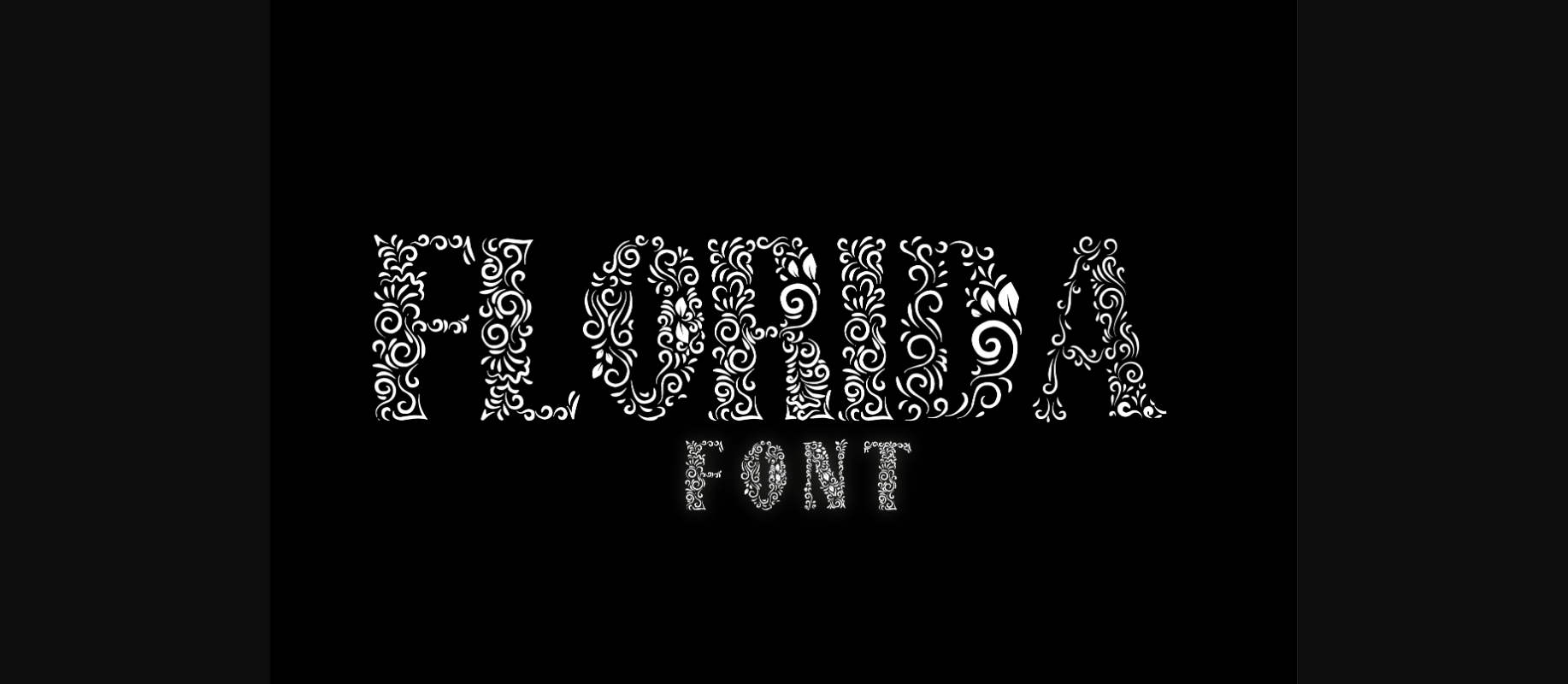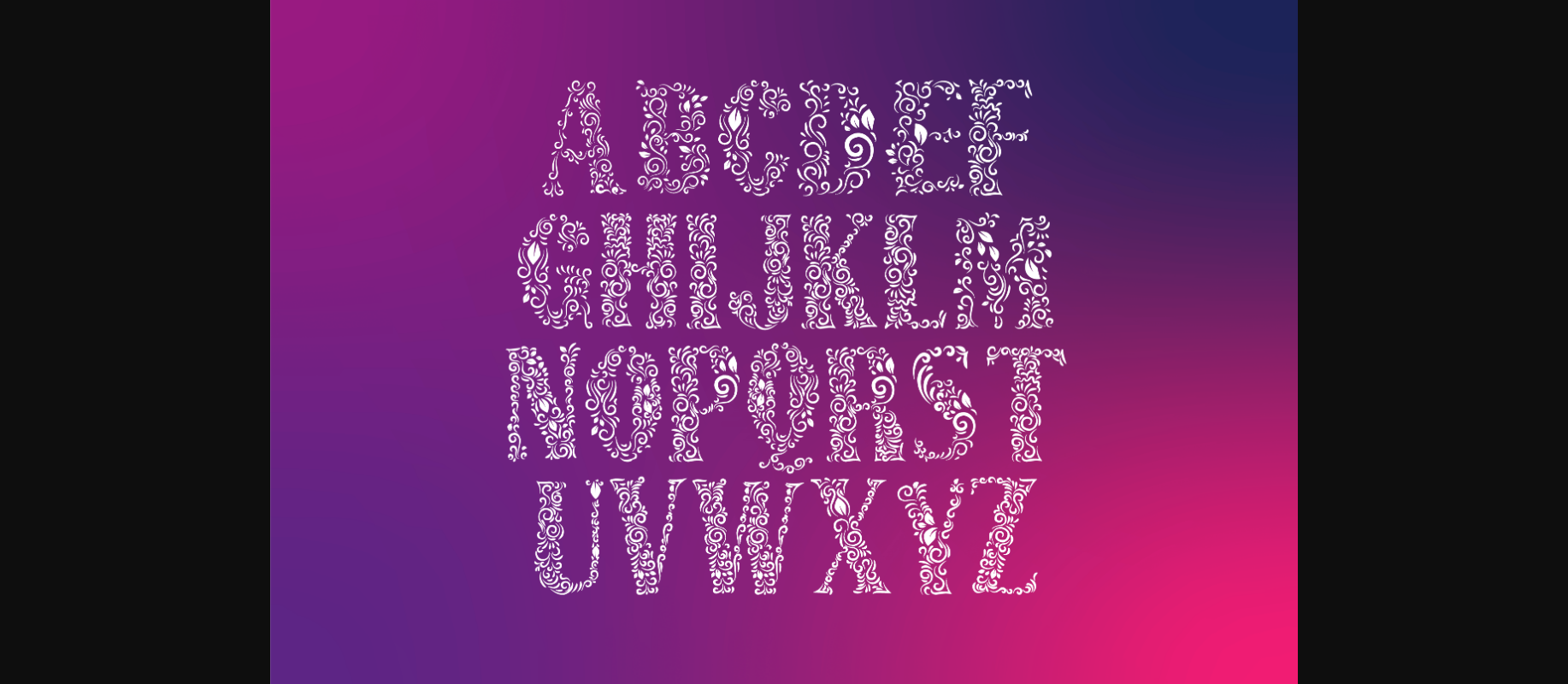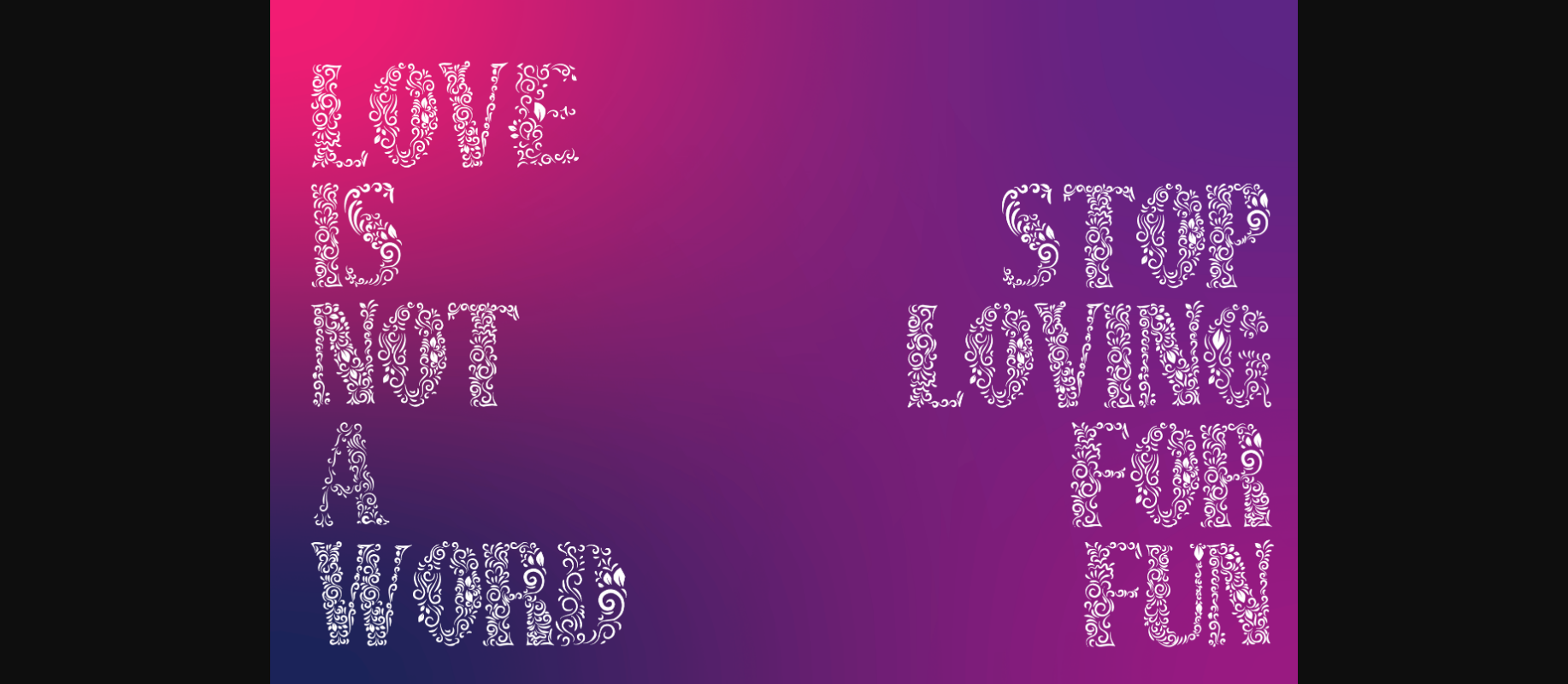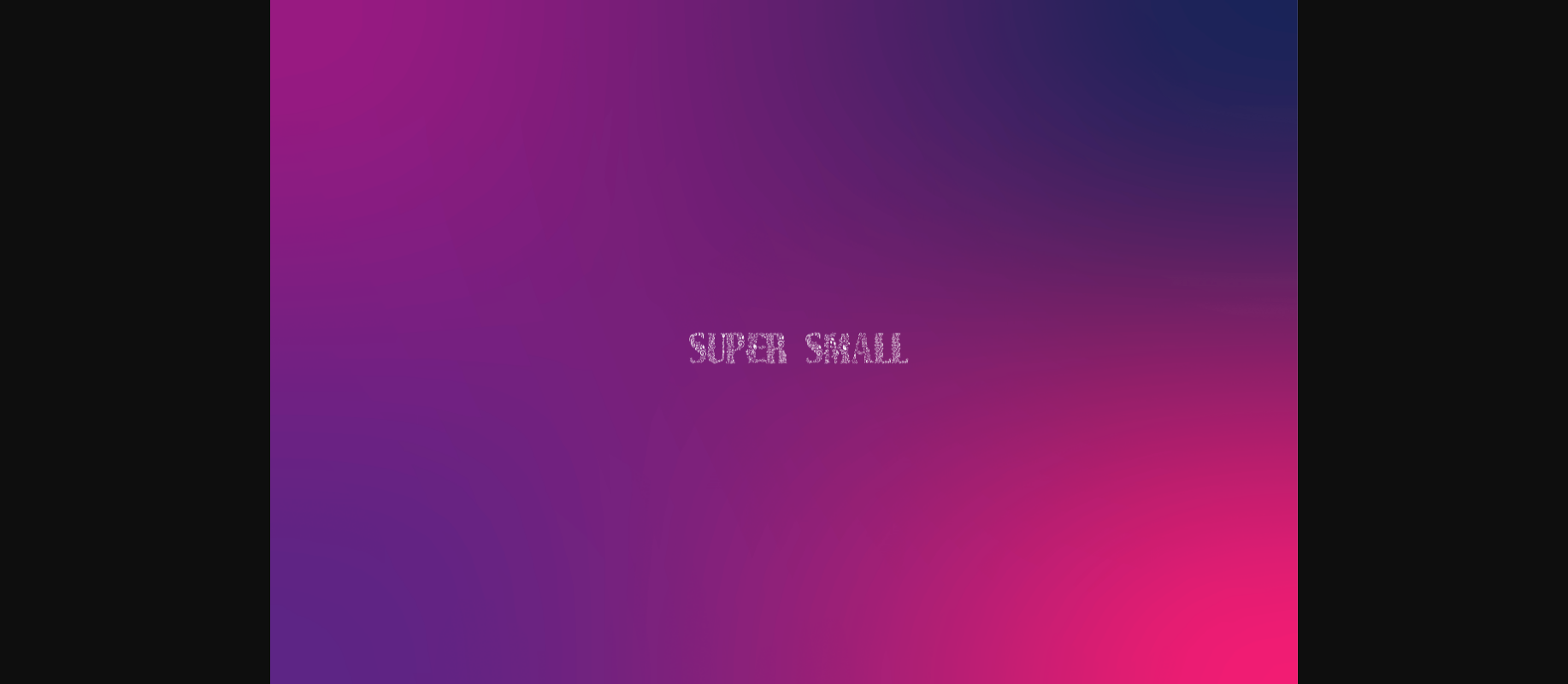
HomeDecorative FontsFlorida Font Decorative Fonts Florida Font FacebookXPinterestWhatsApp 1 of 6 ... Florida Font Poster 2... Florida Font Poster 3... Florida Font Poster 4... Florida Font Poster 5... Florida Font Poster 6... About Florida Font Simple decorative yet beautiful and attractive, take your projects to the next level with Florida. It will make your gifts stunning. So if you want to take your projects to the next level of beauty and modernity, get this font! DOWNLOAD NOW People also explored Monapella Font Centaurus Font Ruxtoni Modern Handwritten Font Collabs Font Mary Quincy Font Yummy Scary Font Faritta Font Magic Winter Font Smiley Font 305 0 TagsFloridaFlorida Font Previous articleMachine FontNext articleLeopard Font LEAVE A REPLY Cancel reply Comment: Please enter your comment! Name:* Please enter your name here Email:* You have entered an incorrect email address! Please enter your email address here Website: Save my name, email, and website in this browser for the next time I comment. Personal Use Free Fat Max Personal Use Free Read more about this font Baveuse Personal Use Free Read more about this font Rhetorical Personal Use Free Read more about this font Blue Highway Personal Use Free Read more about this font BLOG Using Fonts in Digital Marketing: Tips to Strengthen Your Brand Identity In the realm of digital marketing, every visual element plays a crucial role in shaping a brand's identity, and fonts are no exception. The... Top 7 Google Fonts Alternatives for Faster and Privacy-Friendly Web Design (2025) 5 Fonts That Will Dominate Design Trends in 2026 Top 10 Handwritten Fonts That Elevate Your Designs